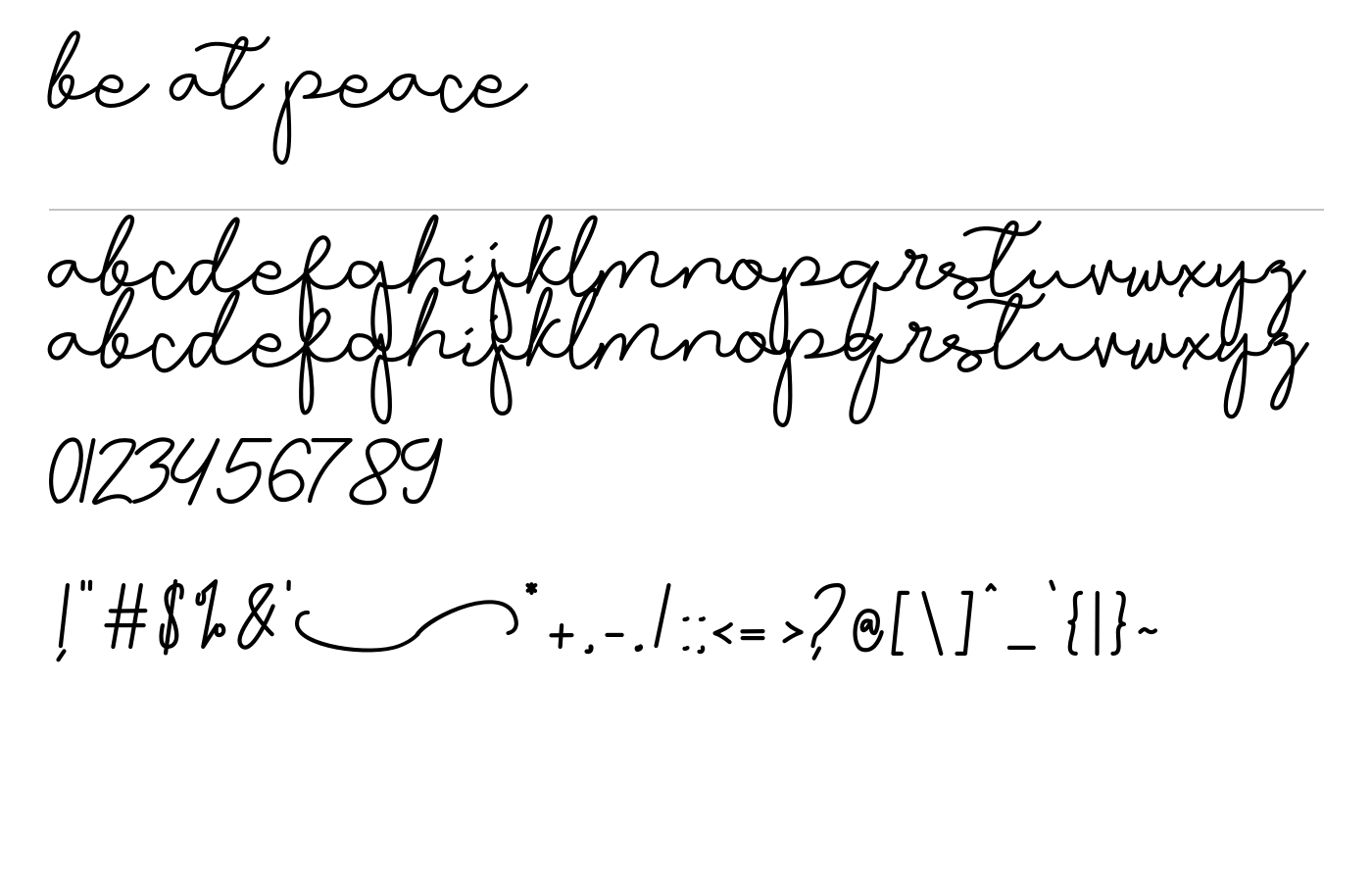
Be at Peace is a delicate, handwritten script font that feels personal and approachable with its thin, flowing strokes and natural cursive style. Its slender, airy letterforms give off a gentle, calm, and elegant vibe, making it ideal for invitations, branding with a soft touch, and creative projects that seek a relaxed, friendly tone. This font works best in designs where warmth and personal connection are desired, such as lifestyle blogs, greeting cards, and boutique packaging.
Be at peace Font
About Be at peace Font
| Font family | Be at peace Font |
| Designer | Em Ali, Designer from Mozyen Studio |